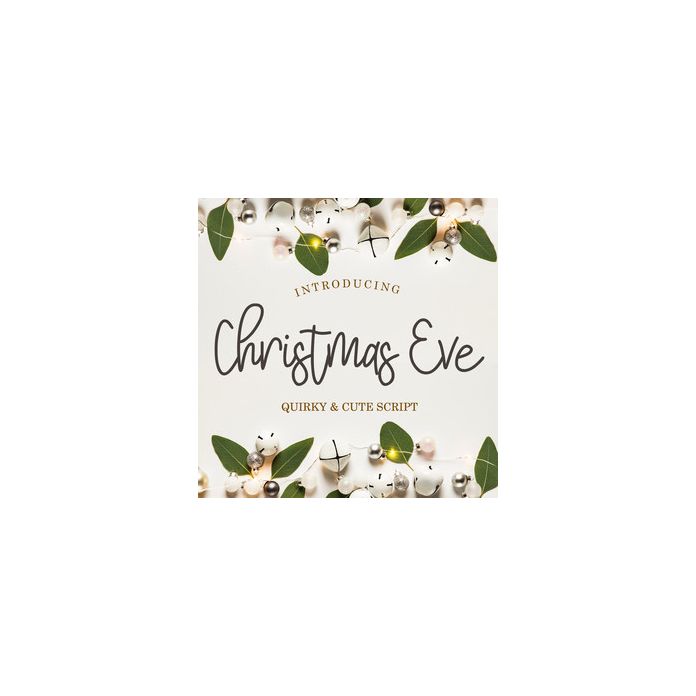
Christmas Eve font is the perfect cute and quirky script for all of your holiday designs! Includes full international language support and some bonus ligatures. This font includes 199 glyphs.